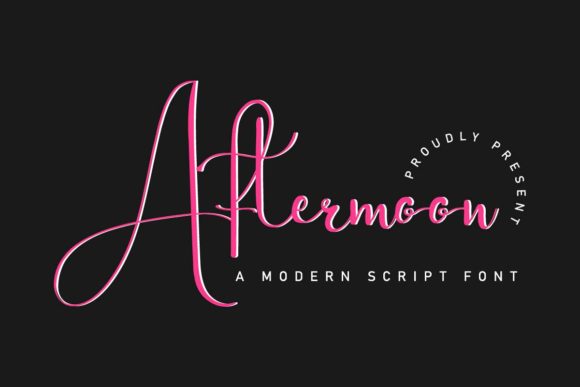
Introducing Aftermoon Font: Elevate Your Creativity with Elegant Handwritten Style
Are you a designer, crafter, or DIY enthusiast looking for a font that can add a touch of elegance and sophistication to your projects? Look no further than Aftermoon Font, a beautiful handwritten script that can turn any creative idea into a true piece of art. In this article, we’ll explore the features and benefits of Aftermoon Font, and how it can be used to take your Instagram feed, DIY projects, and other creative endeavors to the next level.
What is Aftermoon Font?
Aftermoon Font is a carefully crafted handwritten font that exudes elegance and refinement. Its flowing lines, delicate curves, and precise lettering make it perfect for a wide range of creative applications, from social media graphics and invitations to DIY projects and calligraphy scripts. Whether you’re looking to add a personal touch to your designs or create stunning visual content, Aftermoon Font is the perfect choice.
Key Features of Aftermoon Font
- Elegant Handwritten Style: Aftermoon Font boasts a beautiful, handwritten style that adds a touch of sophistication to any design or project.
- Versatile: This font is perfect for a wide range of creative applications, including Instagram graphics, DIY projects, calligraphy scripts, and more.
- High-Quality: This font is crafted with precision and attention to detail, ensuring that it looks great in any size or format.
Using Aftermoon Font for Instagram
If you’re looking to elevate your Instagram feed, Aftermoon Font is a great choice. Its elegant style and versatility make it perfect for creating stunning social media graphics, quotes, and other visual content. Here are a few ideas for using Aftermoon Font on Instagram:
- Quotes and Inspiration: Use Aftermoon Font to create beautiful quote graphics that inspire and motivate your followers.
- Product Showcase: Add a touch of elegance to your product showcase graphics with Aftermoon Font.
- Event Announcements: Create stunning event announcements with Aftermoon Font, complete with details and RSVP information.
Using Aftermoon Font for DIY Projects
Aftermoon Font is also perfect for DIY projects, such as crafting, scrapbooking, and paper crafting. Here are a few ideas for using Aftermoon Font in your DIY projects:
- Calligraphy Scripts: Use Aftermoon Font to create beautiful calligraphy scripts for your DIY projects, such as wedding invitations, gift tags, and more.
- Journaling: Add a touch of elegance to your journal pages with Aftermoon Font.
- Sign Making: Create stunning signs with Aftermoon Font, perfect for special events, parties, and more.
Aftermoon Font is a beautiful and elegant handwritten font that can elevate any creative project or idea. Its versatility, ease of use, and high-quality design make it perfect for designers, crafters, and DIY enthusiasts of all skill levels. Whether you’re looking to create stunning social media graphics, DIY projects, or calligraphy scripts, Aftermoon Font is the perfect choice. So why wait? Download Aftermoon Font today and start turning your creative ideas into true pieces of art!